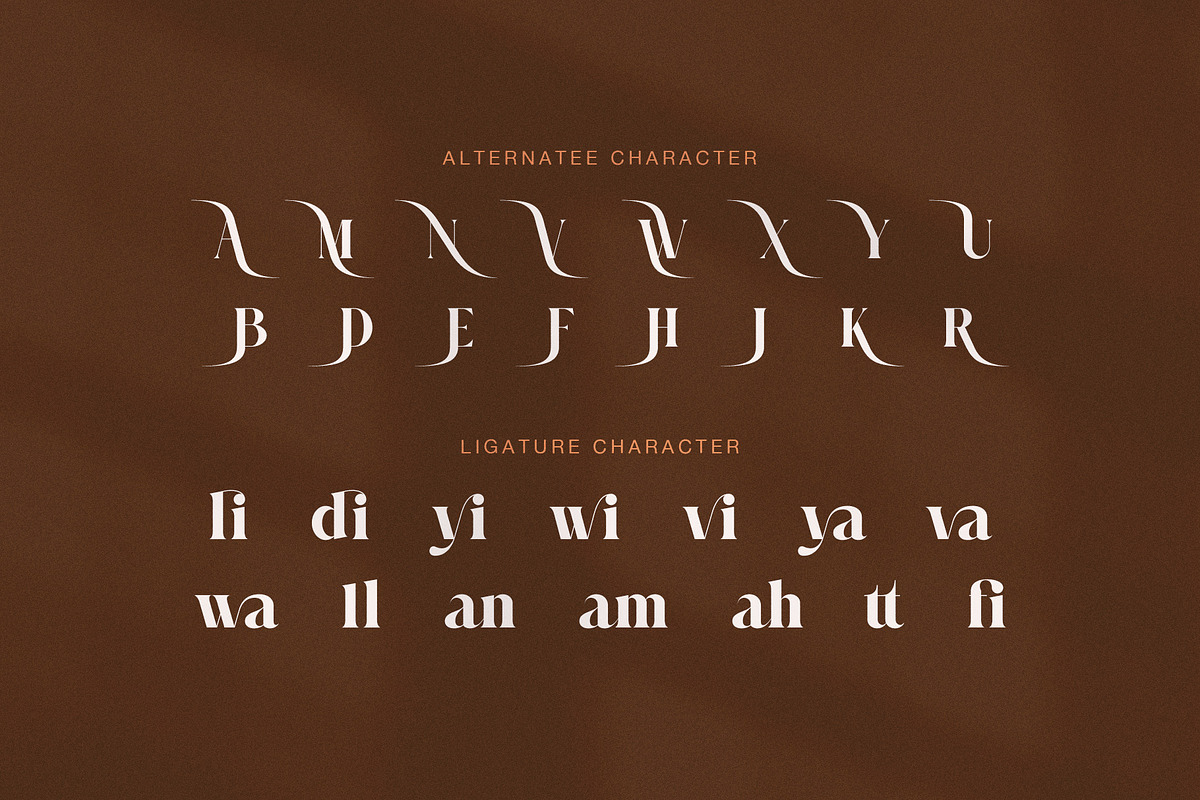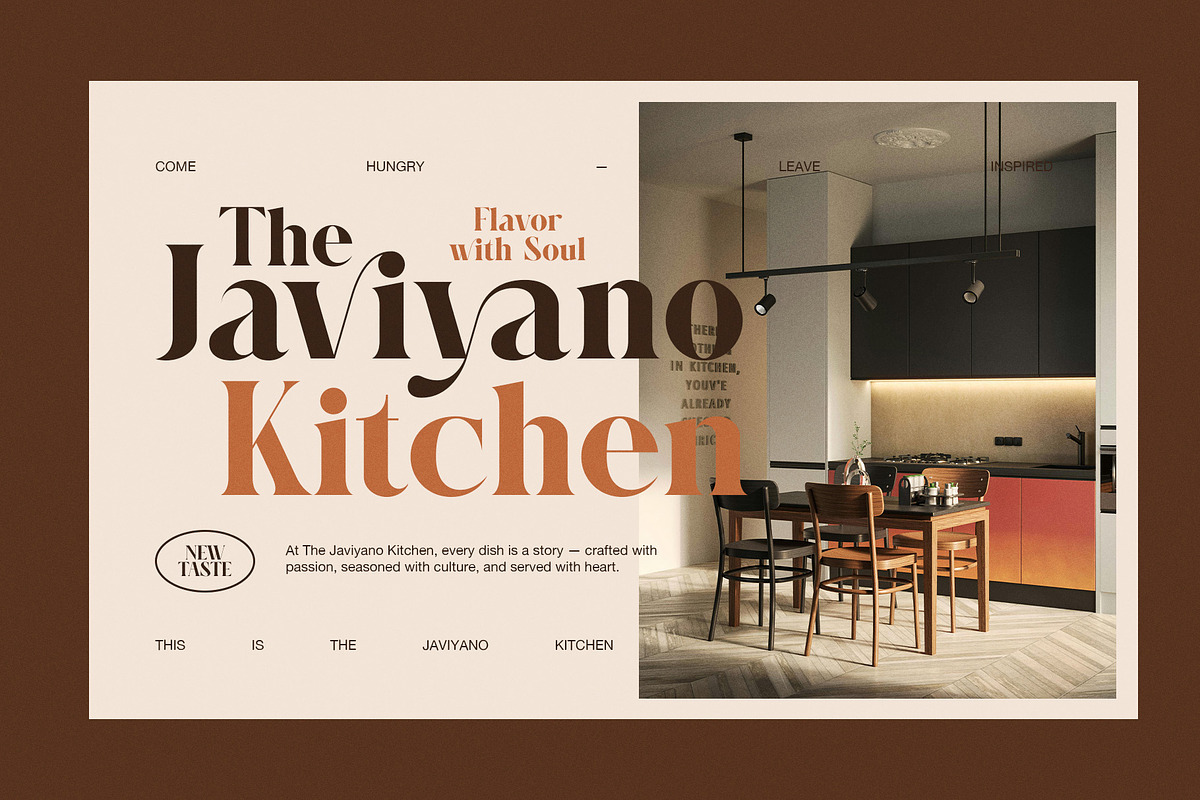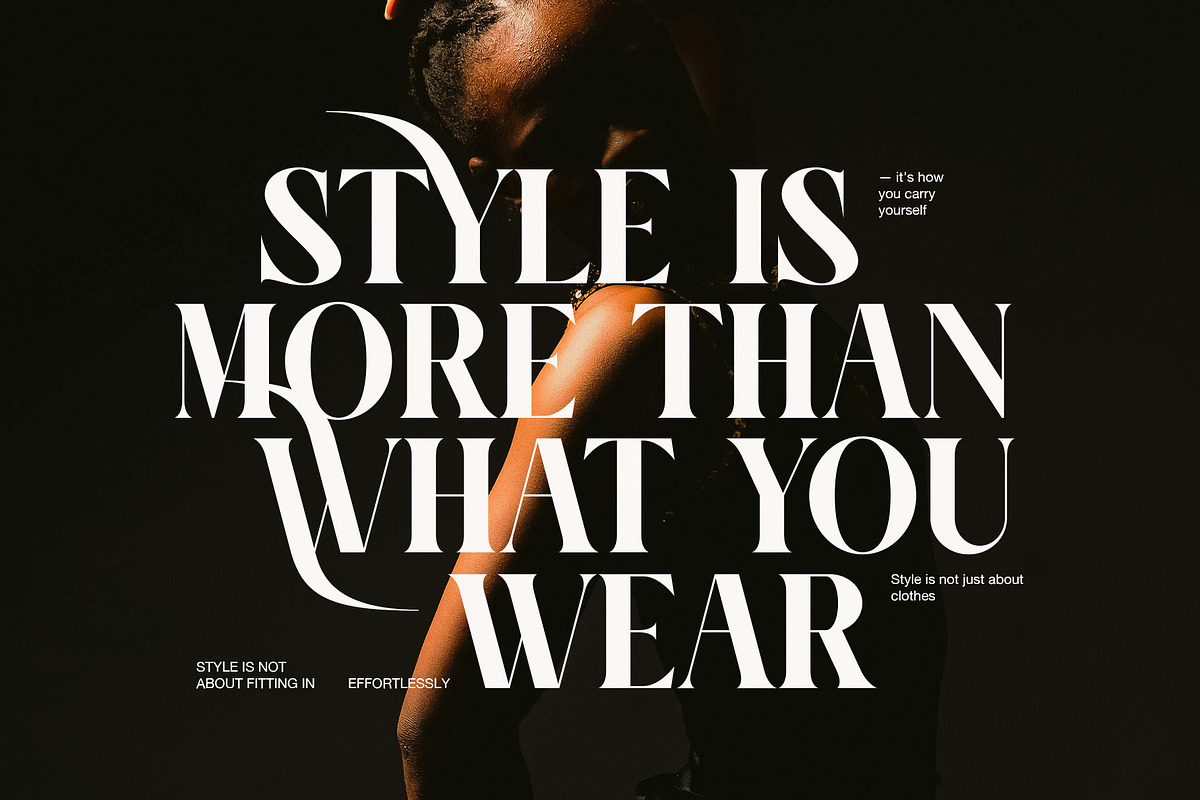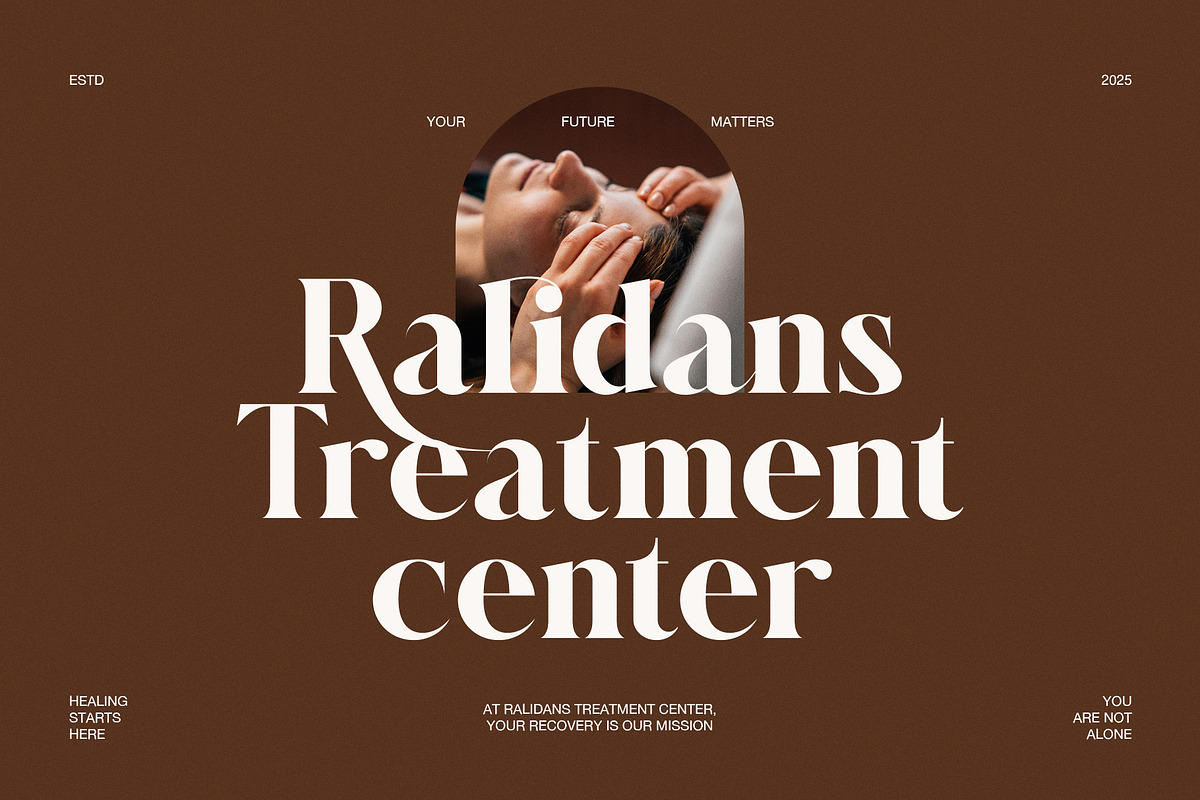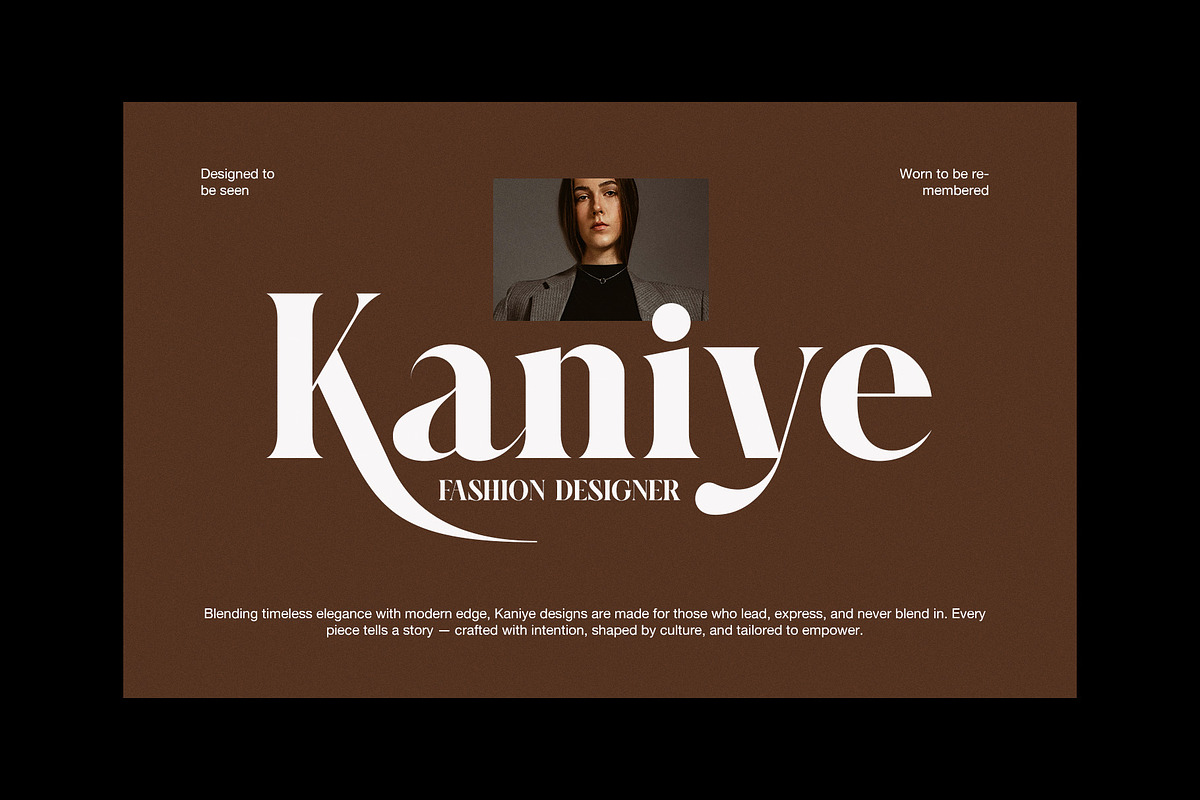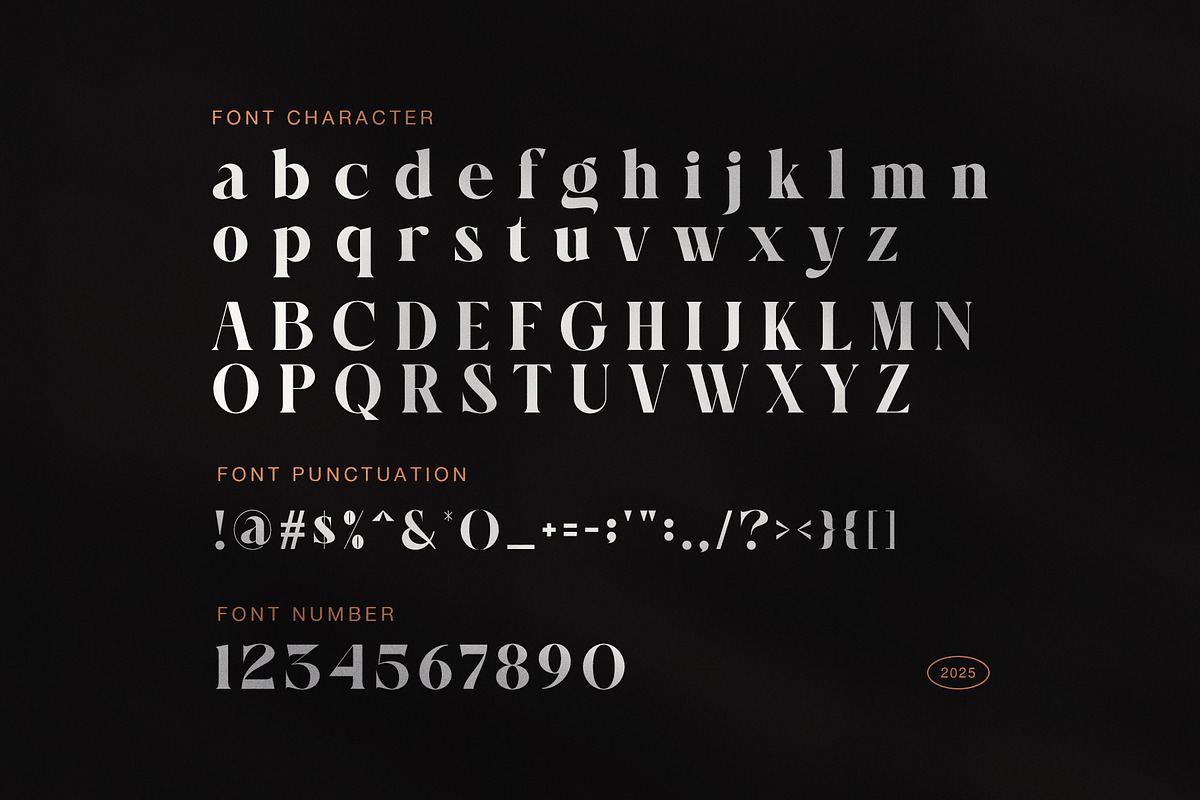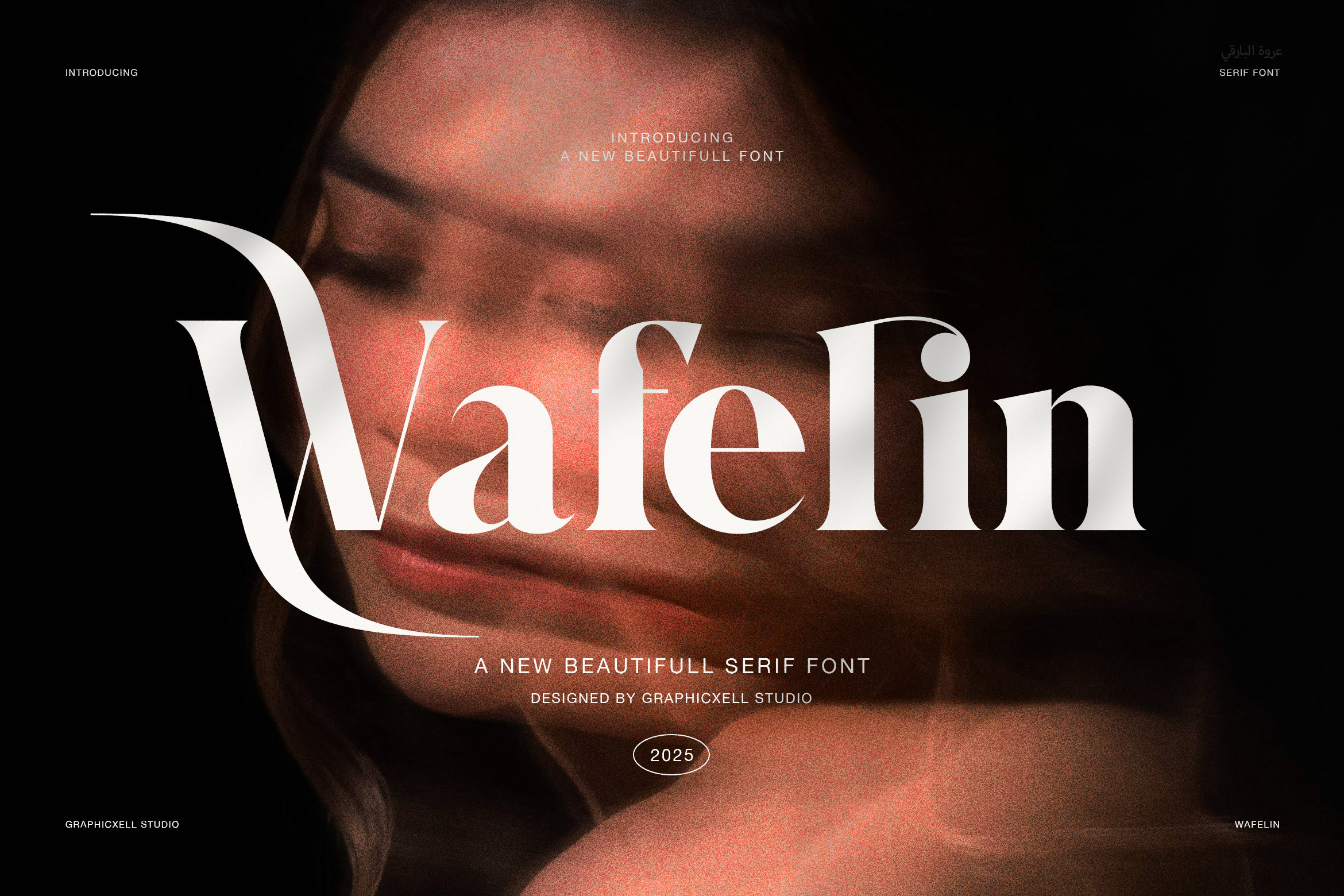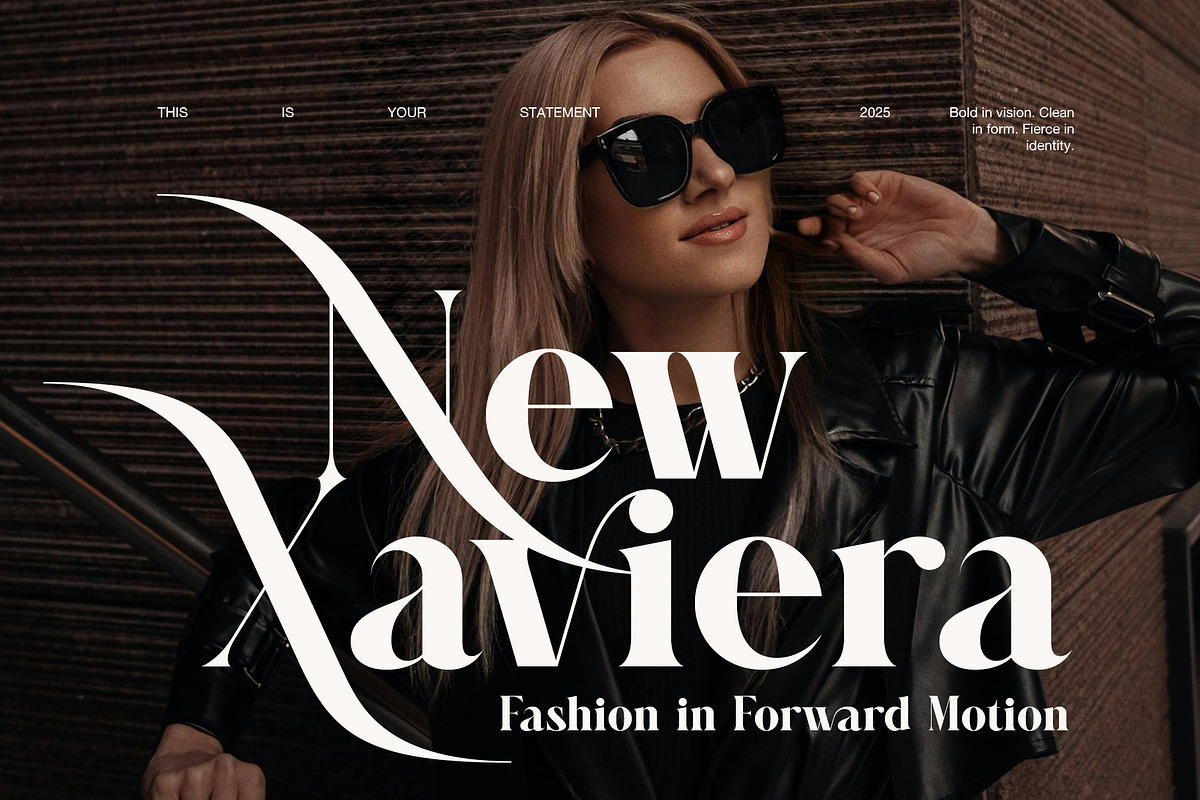
Wafelin Elegant Serif Font
Wafelin is a refined modern serif font that beautifully blends timeless style with a confident modern spirit. Designed by Graphicxell Studio, it captures elegance, sophistication, and personality in every curve. Each stroke flows with precision, while its balanced contrast adds a luxurious rhythm to your words.
Because Wafelin combines classic proportions with artistic innovation, it feels both modern and timeless. Its graceful letterforms invite attention without overpowering the design. Moreover, the smooth terminals and flowing shapes create a visual softness that makes every composition look harmonious and complete.
🌟 Perfect For
This elegant serif typeface adapts easily to many creative uses, including:
Luxury branding and packaging
Editorial and magazine headlines
Fashion campaigns and logos
Wedding stationery and invitations
Website titles and portfolio design
✨ Font Features
Full uppercase and lowercase alphabets
Numbers, punctuation, and symbols
Elegant ligatures and unique alternates
Balanced spacing and refined structure
💡 Why You’ll Love Wafelin
Wafelin is more than a font—it’s a statement of style. It elevates every project with refined charm and effortless sophistication. Because of its modern geometry, it maintains perfect readability even at large sizes. Furthermore, its graceful alternates allow designers to explore creativity while keeping a polished look.
You can easily use Wafelin to express luxury, confidence, and professionalism across various platforms. It performs beautifully in both print and digital design, ensuring consistent elegance throughout your work. Therefore, if you want your typography to feel elevated, polished, and artfully modern, Wafelin is the perfect choice.
Let your words shine with confidence and elegance—choose Wafelin, where every curve tells a story of beauty and design excellence.